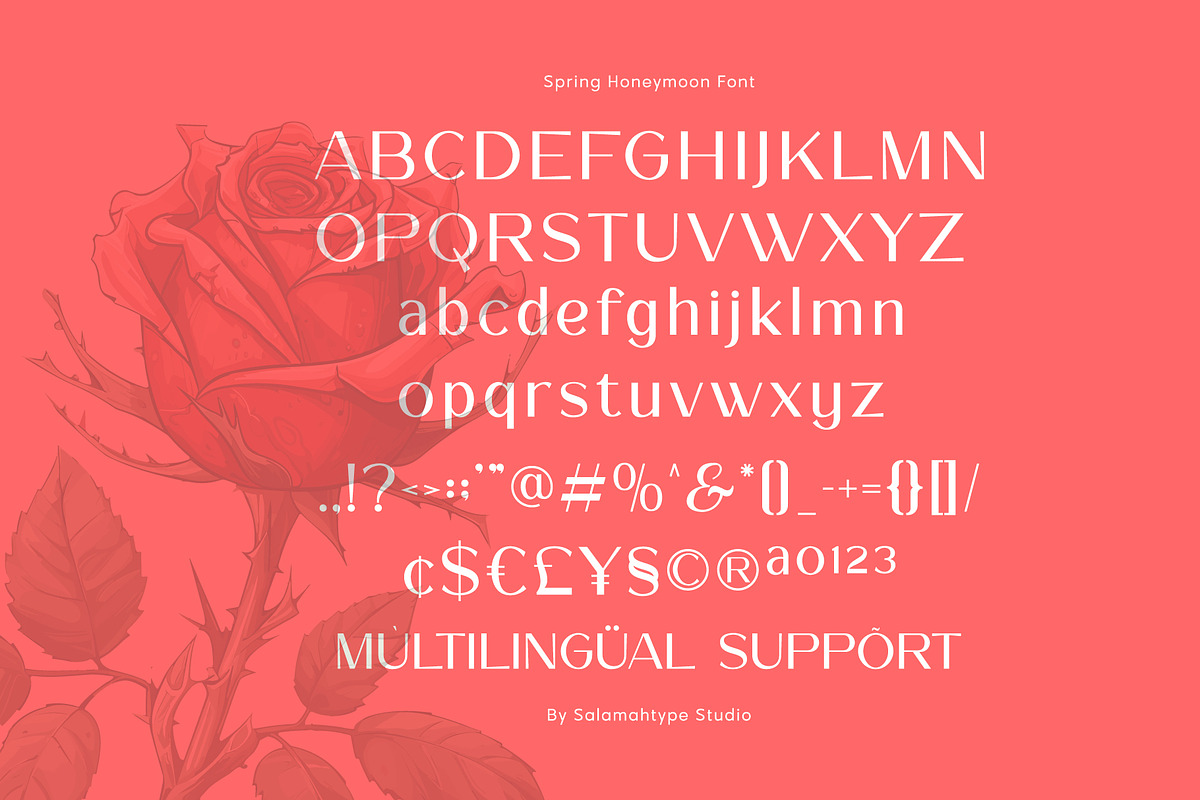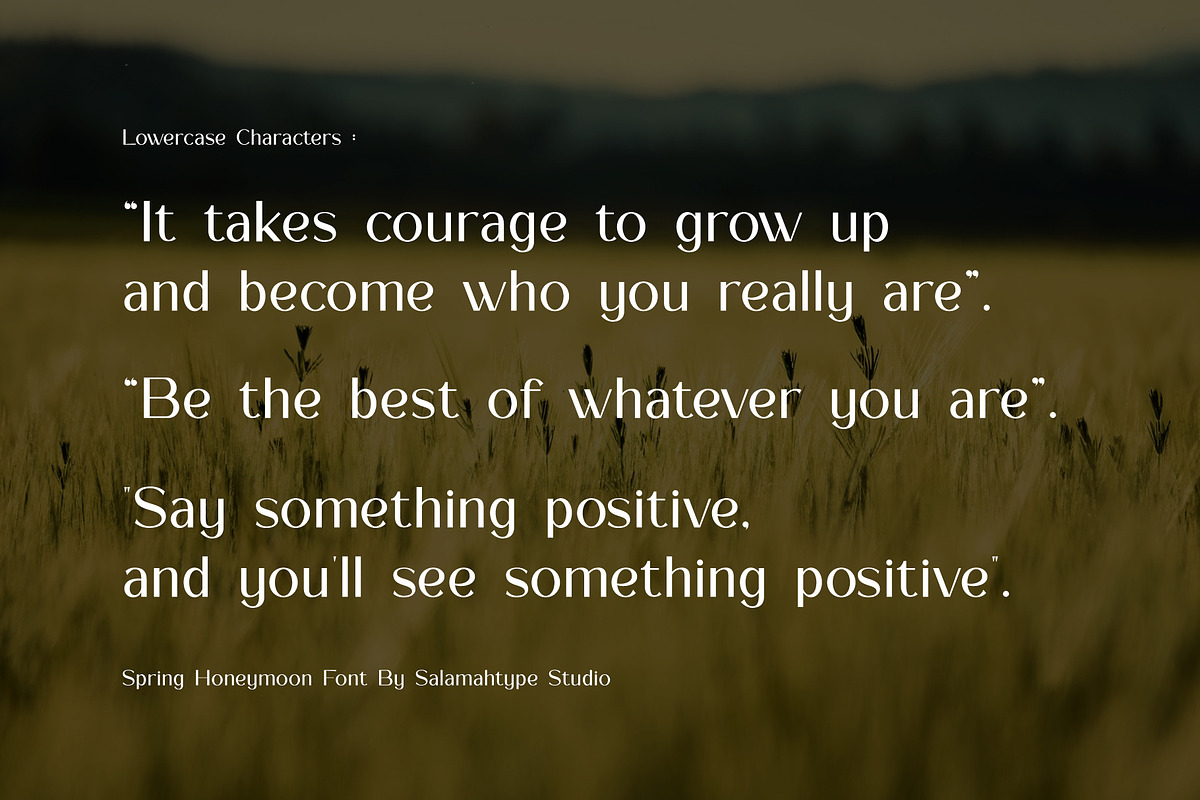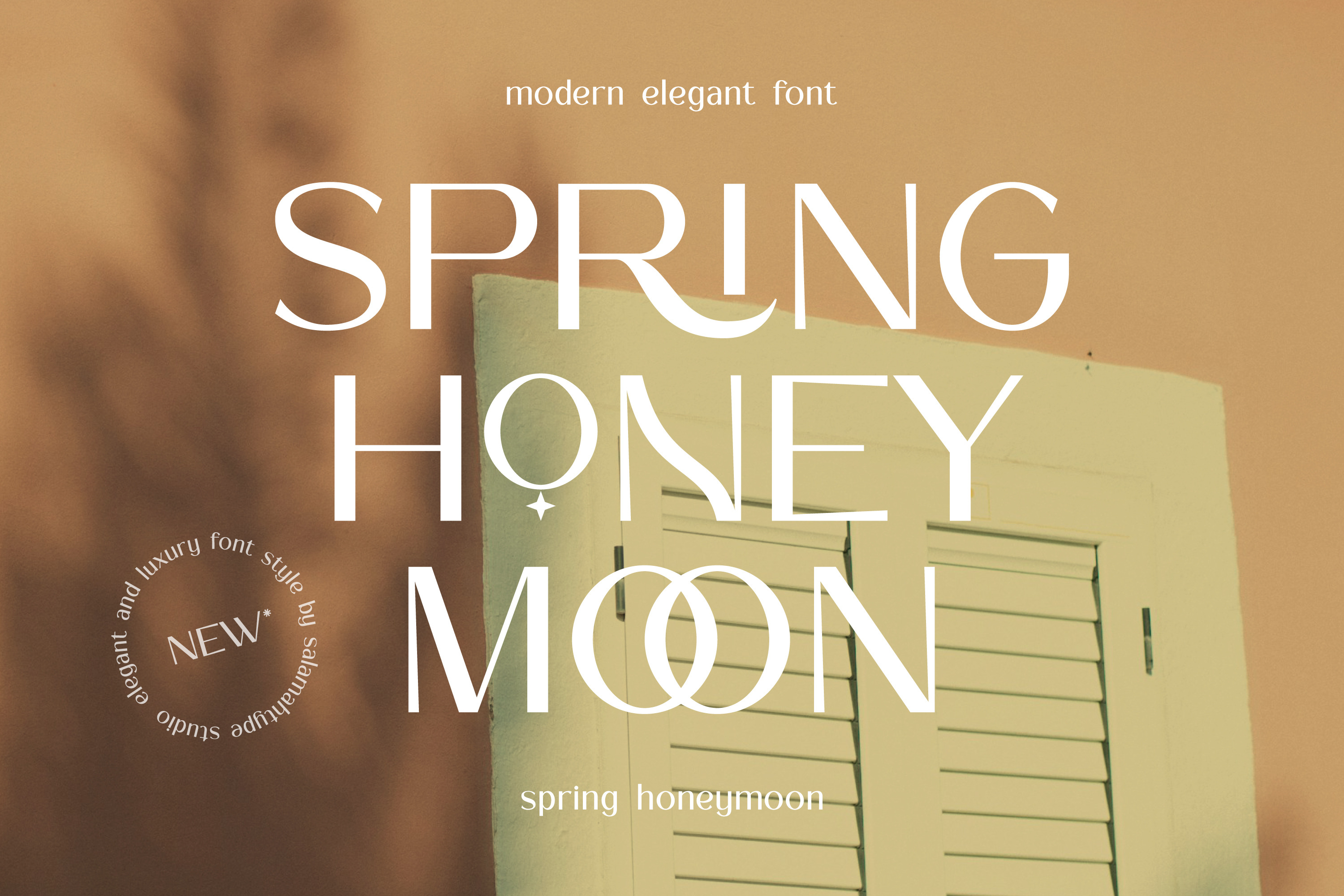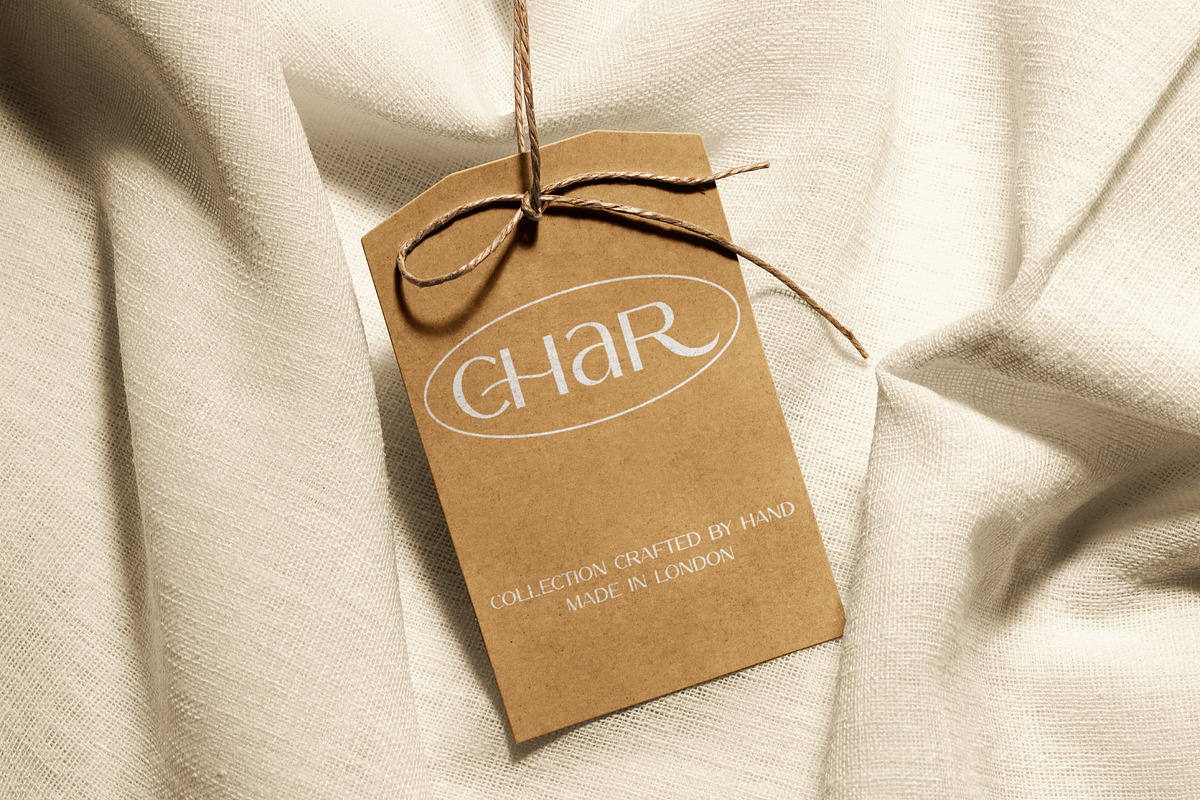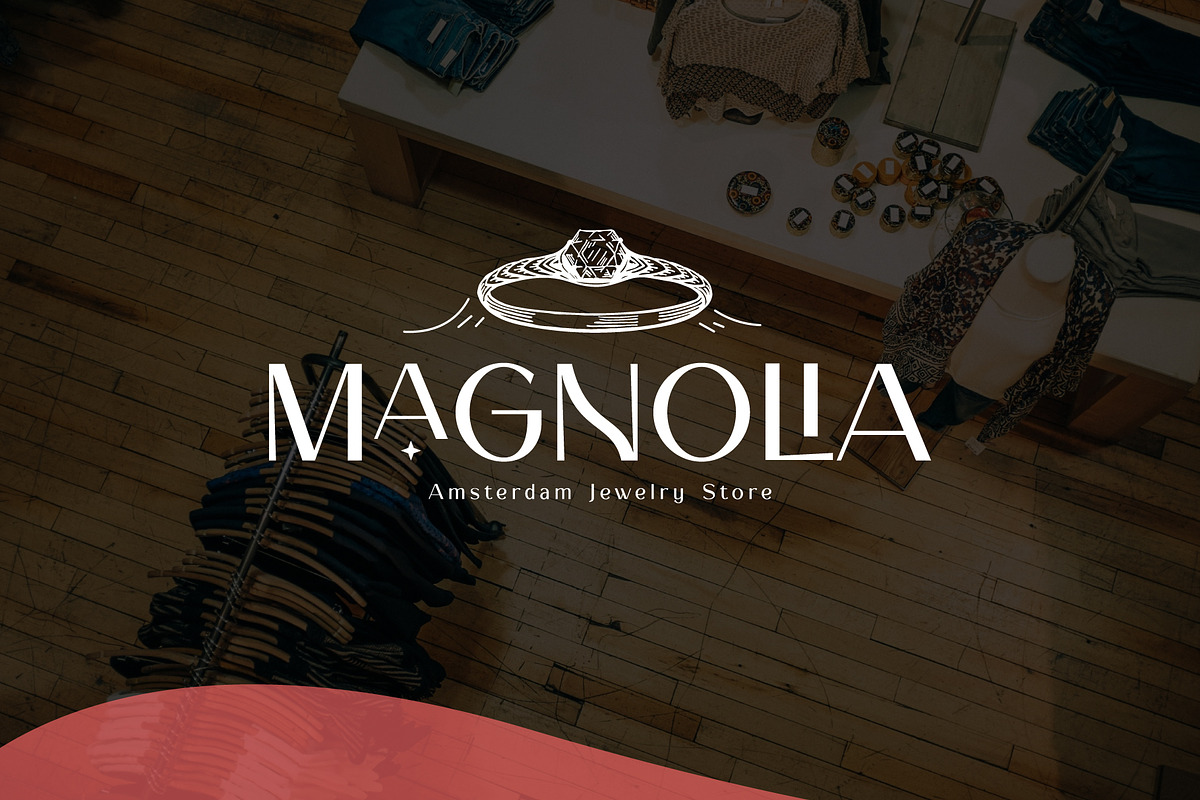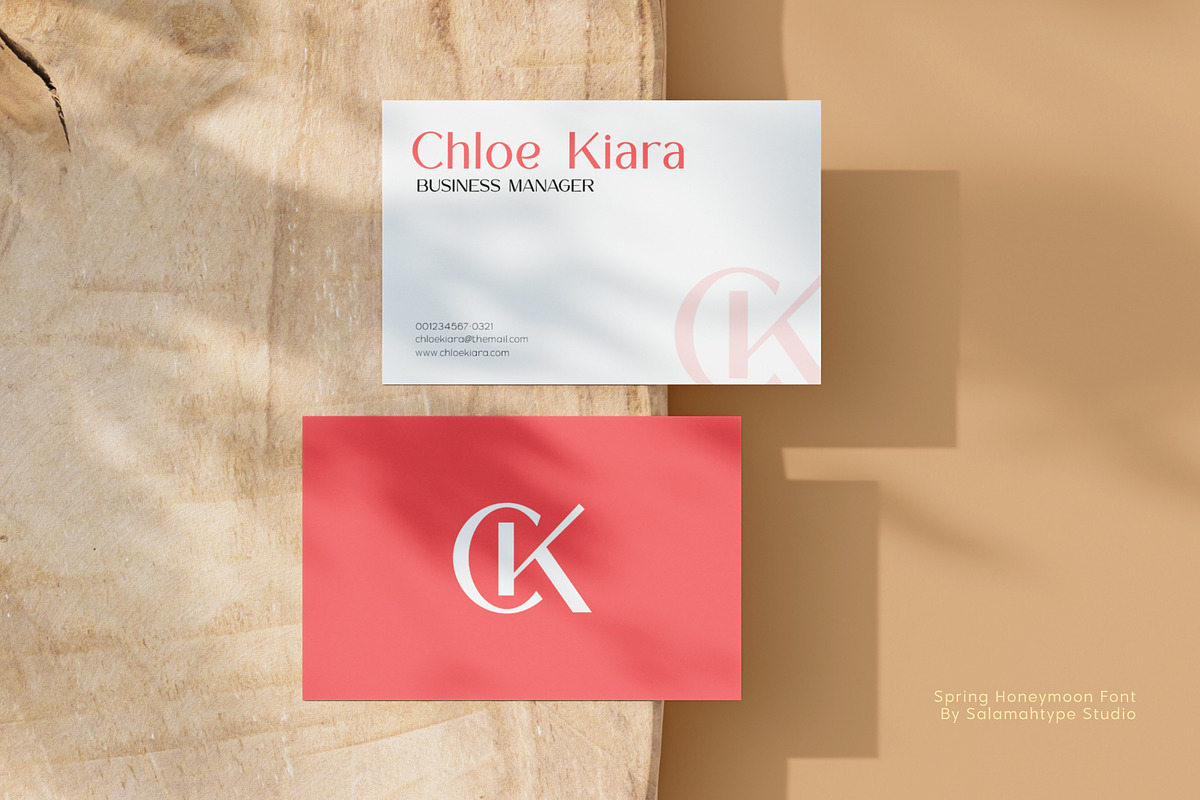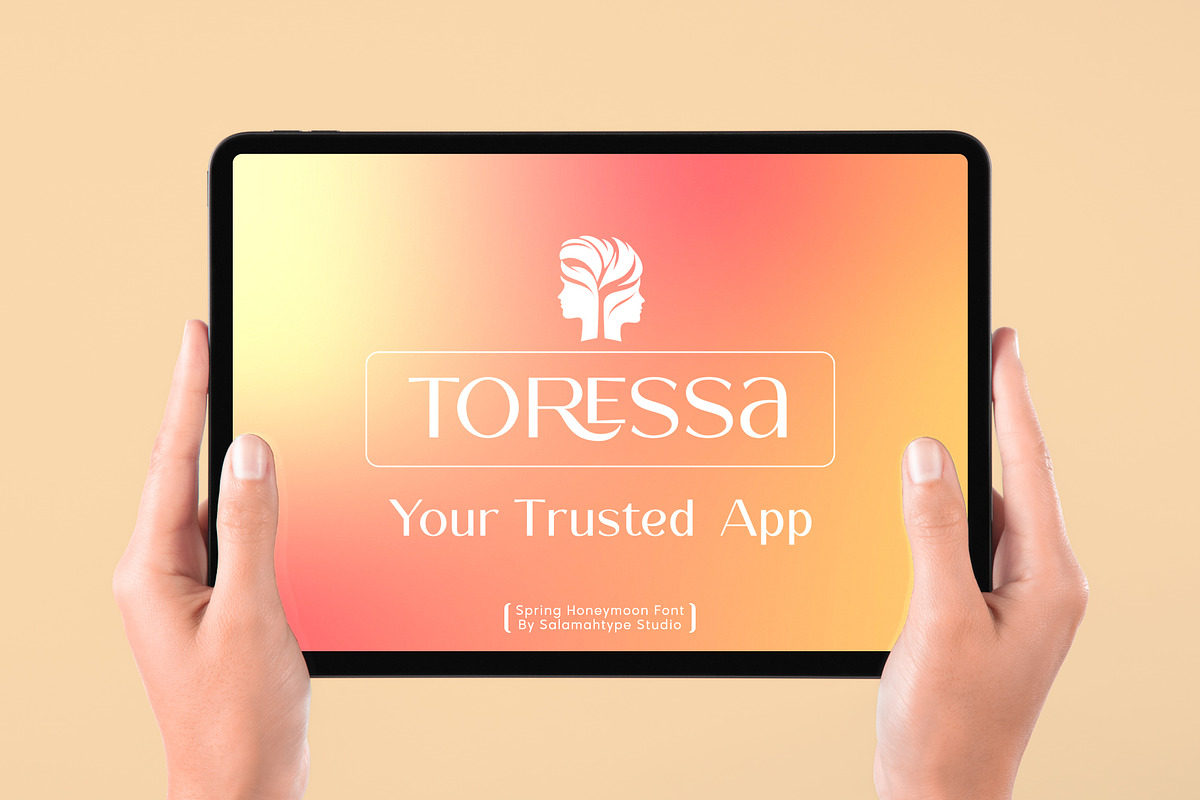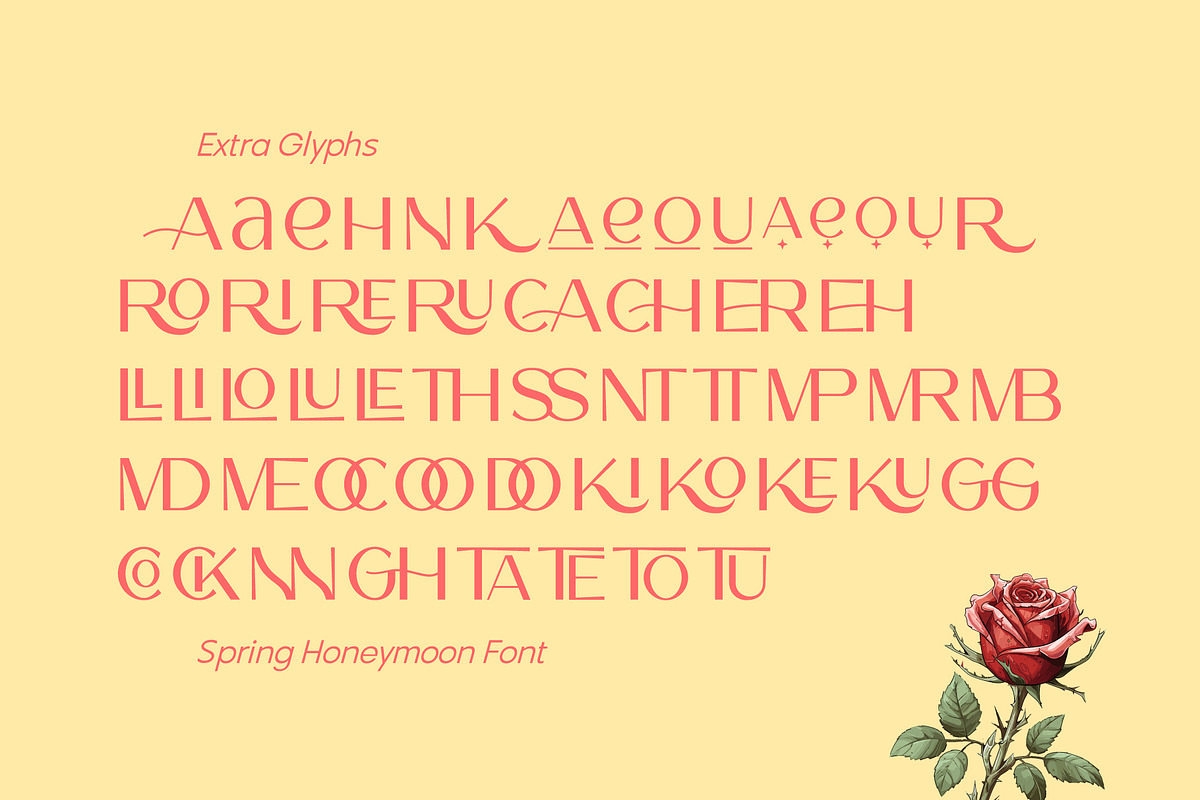
Spring Honeymoon - Aesthetic Font
Spring Honeymoon is a stylish, modern font with elegant uppercase letters featuring lots of alternates and ligatures, perfect for designing unique logos and beautiful wedding names. The lowercase is clean and easy to read, making it great for paragraphs. Whether you’re working on wedding invites, branding, or any creative project, this font brings a perfect mix of class and readability.
Features : – Uppercase Lowercase – Symbols Numbers – Alternates – Ligatures – Support Multilingual.